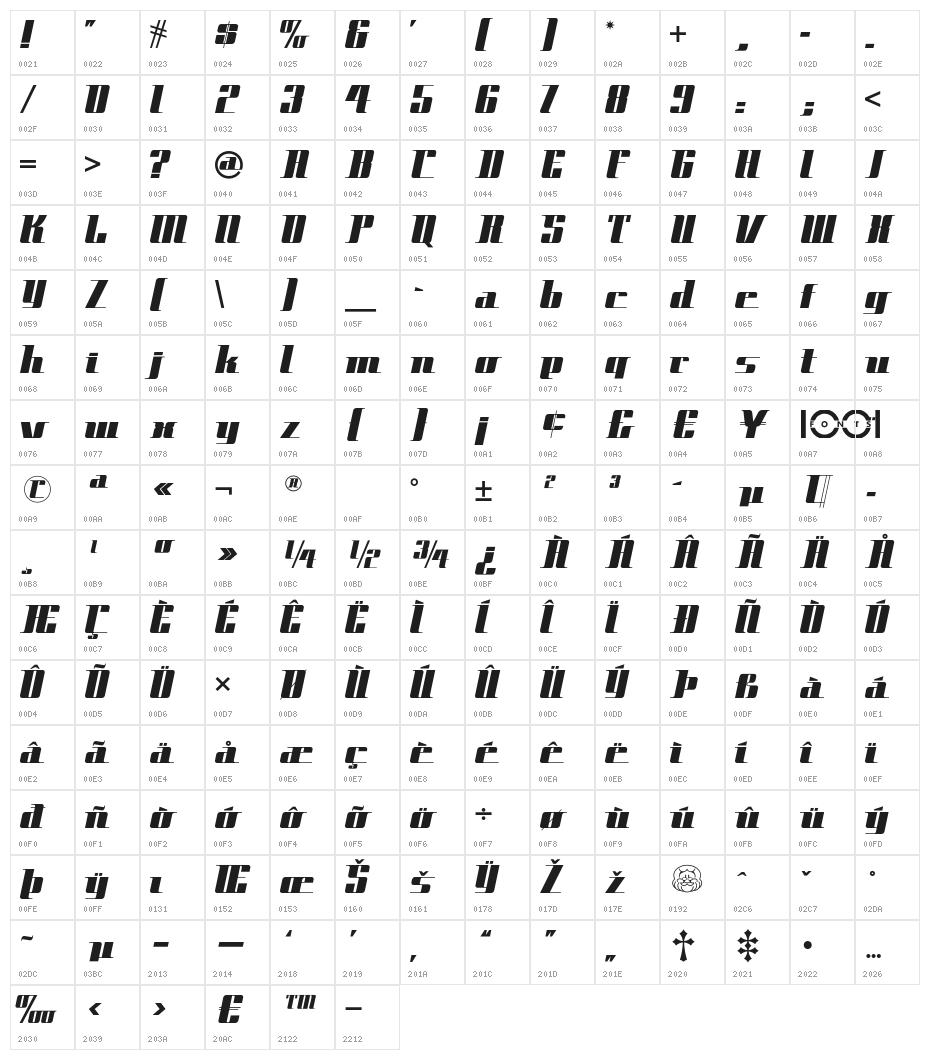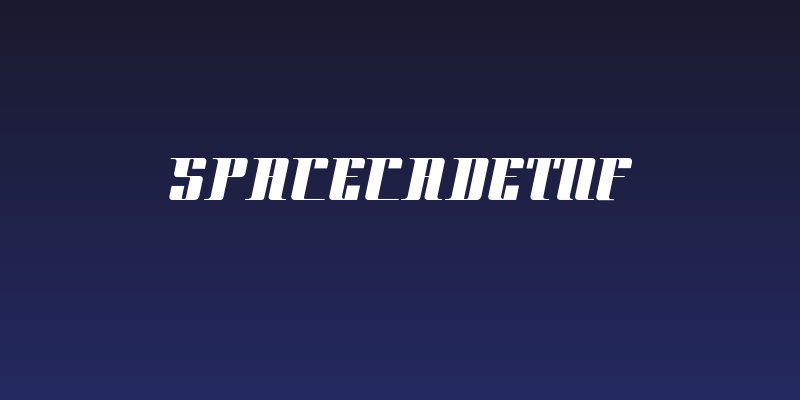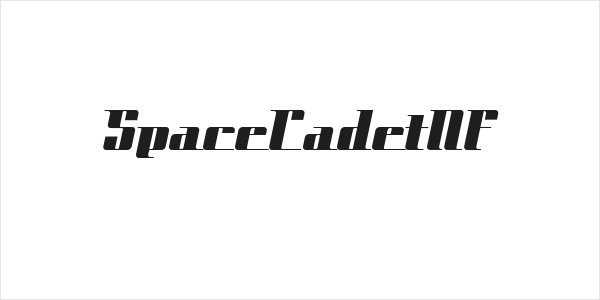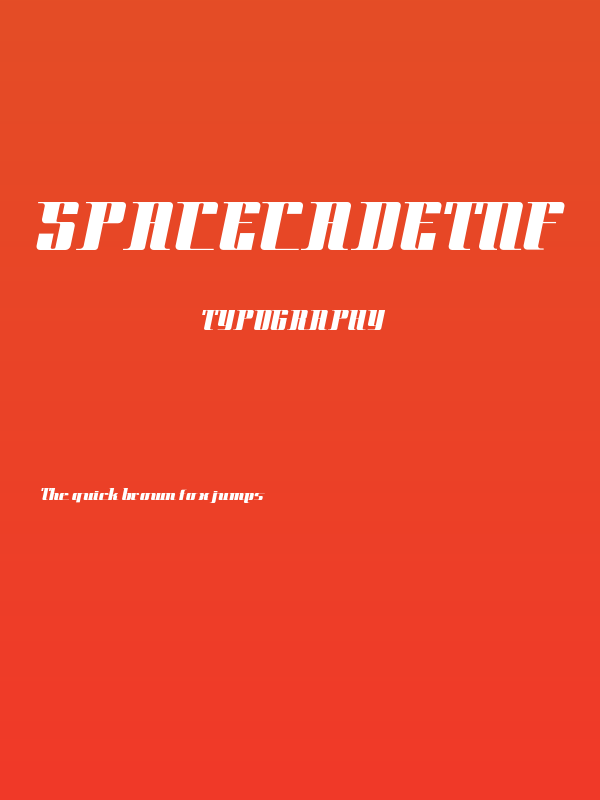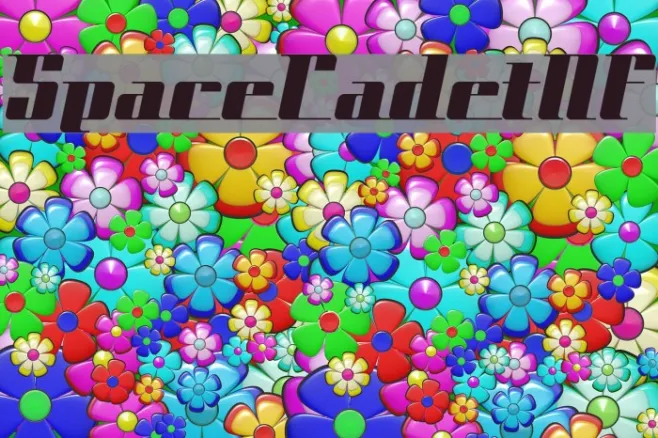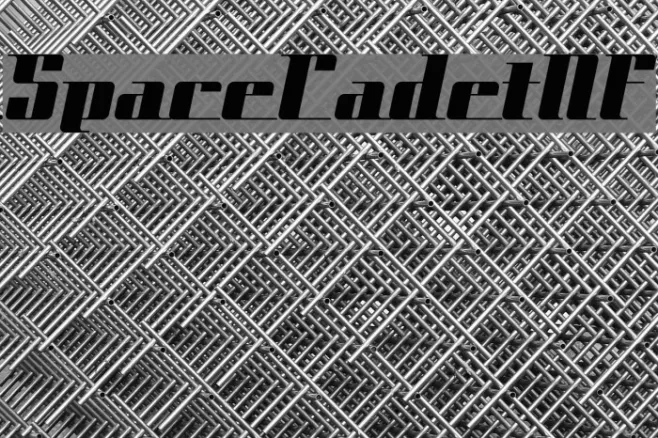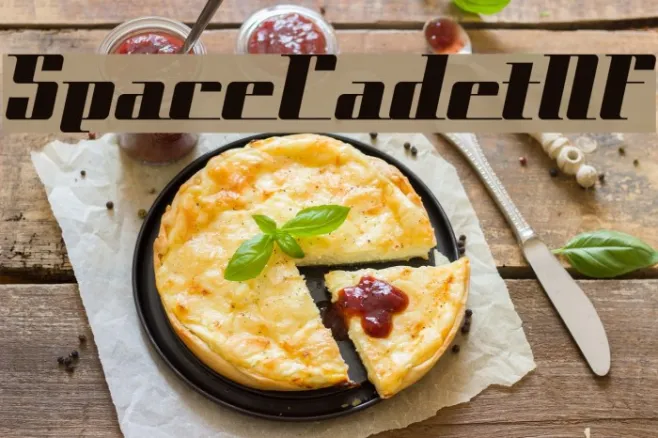
SpaceCadetNF Font
SpaceCadetNF Description
This font features a futuristic and dynamic design with sharp, angular lines and a distinct slant, giving it a sense of motion and speed. The uppercase letters are bold and commanding, while the lowercase letters maintain a consistent style, offering a cohesive look. The numerals are equally striking, with a geometric flair that complements the overall aesthetic. Special characters are designed with the same attention to detail, ensuring versatility across various applications. The font's unique style makes it ideal for projects that require a modern and edgy appearance.